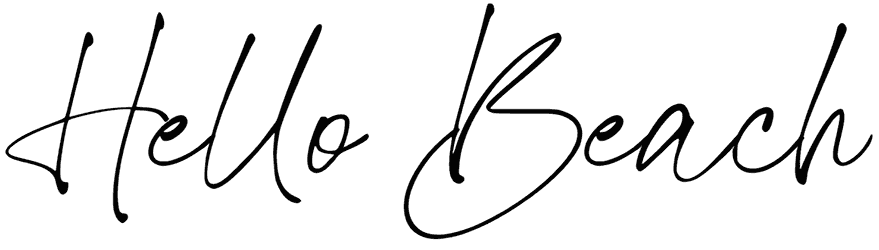
Hello Beach Font
Summer has arrived, and you can create a relaxed atmosphere with Hello Beach. This handwritten font has a complex style that is hard to read despite the smooth connections.
Therefore, it can be a brilliant find for those who want to focus the reader for a few seconds. Our goal at RB in adding this script font to our growing library has been to help you communicate effectively in the form of album covers, letters, postcards, and the like.